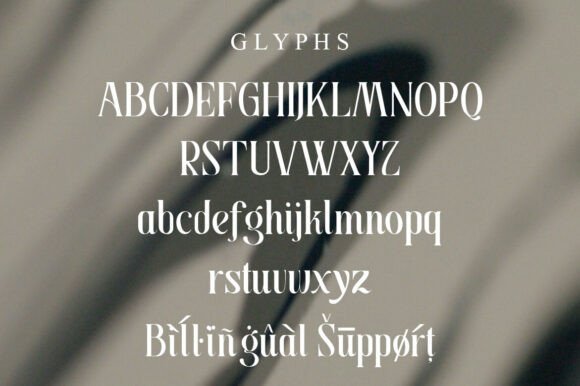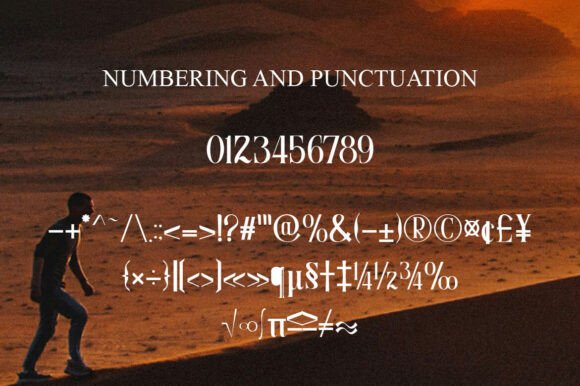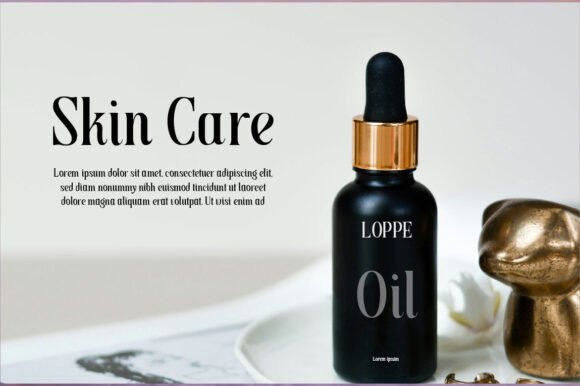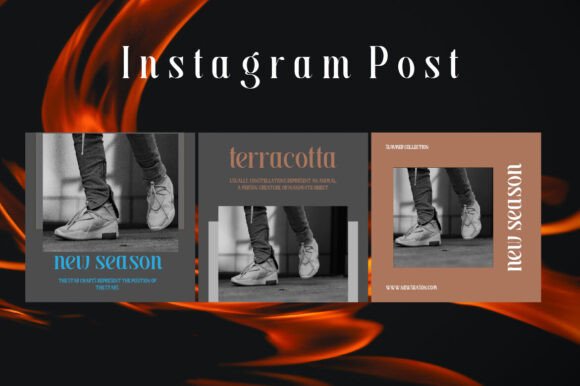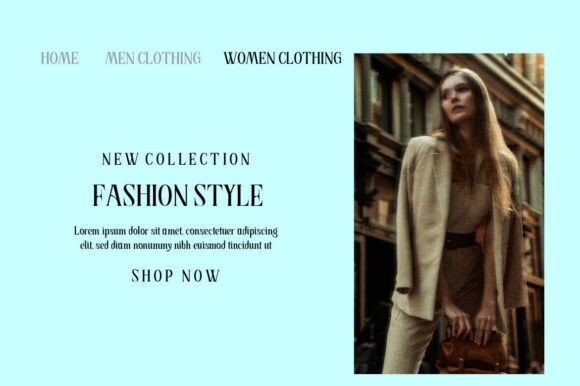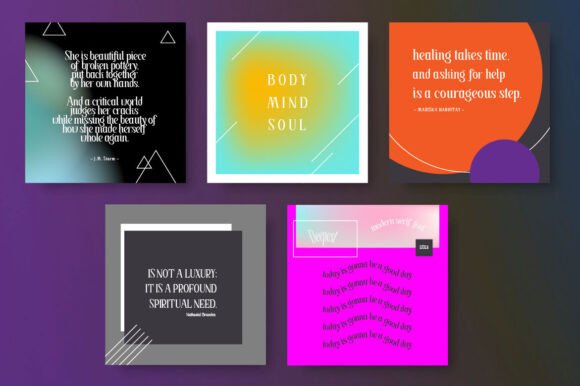
Introducing Deepest Font: Elevate Your Designs with Modern Elegance
In the world of typography, a font can make or break a design. The right font can elevate your project from ordinary to extraordinary, conveying your message with clarity and style. If you’re a designer, craft, or simply someone who appreciates beautiful typography, you’re in luck. We’re excited to introduce Deepest Font, a modern serif font created by Gunalocraft that’s poised to revolutionize your designs.
What is Deepest Font?
Deepest Font is a sleek and sophisticated serif font that’s perfect for a wide range of projects. Its modern design makes it an excellent choice for designers and crafters looking to add a touch of elegance to their work. Whether you’re creating a logo, typography quote, or magazine cover, Deepest Font is the perfect companion to help you achieve your creative vision.
One of the standout features of Deepest Font is its versatility. This font is ideal for a multitude of projects, including:
- Logos: Create a lasting impression with a custom logo that exudes professionalism and style.
- Wedding and typography quotes: Add a touch of romance and whimsy to your wedding or typography projects.
- Magazine or book covers: Make your publication stand out with a captivating cover that showcases Deepest Font.
- Website headers: Elevate your website’s design with a modern and elegant header.
- Clothing and branding: Create stunning apparel and branding materials that showcase your style.
- Packaging design: Make your product packaging pop with Deepest Font.
- Fashion-related branding or editorial design: Perfect for fashion magazines, blogs, or brand identities.
- Digital design: Use Deepest Font in your digital projects, such as social media graphics or email newsletters.
- Posters and advertisements: Create eye-catching posters and ads that grab attention.
- Apparel projects: Design custom apparel with a professional and modern touch.
- Social media posts: Elevate your social media game with stunning graphics featuring Deepest Font.
- Document type: Use Deepest Font for reports, proposals, or any other document that requires a professional touch.
Why Choose Deepest Font?
So, what sets Deepest Font apart from other fonts? Here are just a few reasons why designers and crafters love this modern serif font:
- Modern and professional: Deepest Font boasts a sleek, contemporary design that’s perfect for projects that require a professional touch.
- Elegant and sophisticated: This font exudes elegance and sophistication, making it ideal for high-end branding and design projects.
- Highly versatile: Deepest Font can be used in a wide range of projects, from digital designs to print materials.
- Easy to read: The font’s clear and legible design ensures that your message is conveyed with clarity.
With Deepest Font, you can take your designs to the next level. Whether you’re a seasoned designer or a crafty DIY enthusiast, this modern serif font is sure to become a staple in your toolkit. Say goodbye to bland, generic fonts and hello to a world of creative possibilities.
In conclusion, Deepest Font is a game-changer for designers and crafters looking to elevate their designs with modern elegance. With its versatility, sophistication, and ease of use, this font is sure to become a favorite among creatives. Whether you’re working on a logo, magazine cover, or social media post, Deepest Font is the perfect choice. So, go ahead and explore the world of Deepest Font – your designs will thank you.